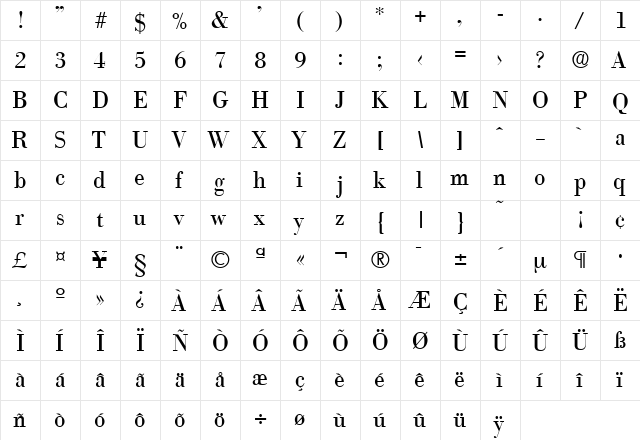
Bodoni-Serial Regular Font Preview
Bodoni-Serial Regular
Bodoni-Serial Regular Font Details
Design Context for Bodoni-Serial Typeface
Bodoni-Serial is a composed and adaptable typeface that performs quietly and consistently across a wide range of design contexts.